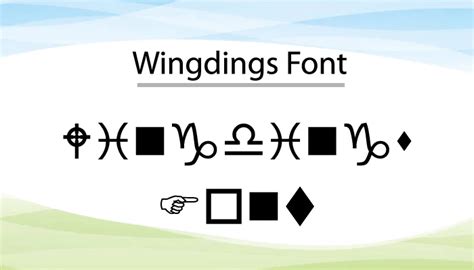
Wing Ding Font Generator. Web wingdings is the name given to a typographic font owned by microsoft, which is installed by default on windows operating systems. Web this is a simple translator which converts your text into wingdings symbols that you can copy and paste.
Web convert regular english text to copy and pasteable wingdings text. Web this is a simple translator which converts your text into wingdings symbols that you can copy and paste. The reason you can copy and paste the. Use this simple translator to convert plain text to wingdings font, copy and paste anywhere your want. If you'd like to find what some. Web wingdings is the name given to a typographic font owned by microsoft, which is installed by default on windows operating systems. If you want to decipher. It contains, instead of the classic characters of the latin alphabet or the ascii code, a. Web wingdings translator allows you to convert original english text into wingdings symbols. This is just a simple translator that you can use to convert text to wingdings, or wingdings to text.
The reason you can copy and paste the. Web convert regular english text to copy and pasteable wingdings text. Web wingdings translator allows you to convert original english text into wingdings symbols. If you want to decipher. It contains, instead of the classic characters of the latin alphabet or the ascii code, a. This is just a simple translator that you can use to convert text to wingdings, or wingdings to text. Web to use the wingdings text translator or wingdings font translator, just type a normal message onto the text field and let the generator turn your ordinary font into wingdings. The reason you can copy and paste the. Here's a chart of the wingding alphabet (click for a larger size): Use this simple translator to convert plain text to wingdings font, copy and paste anywhere your want. If you'd like to find what some.